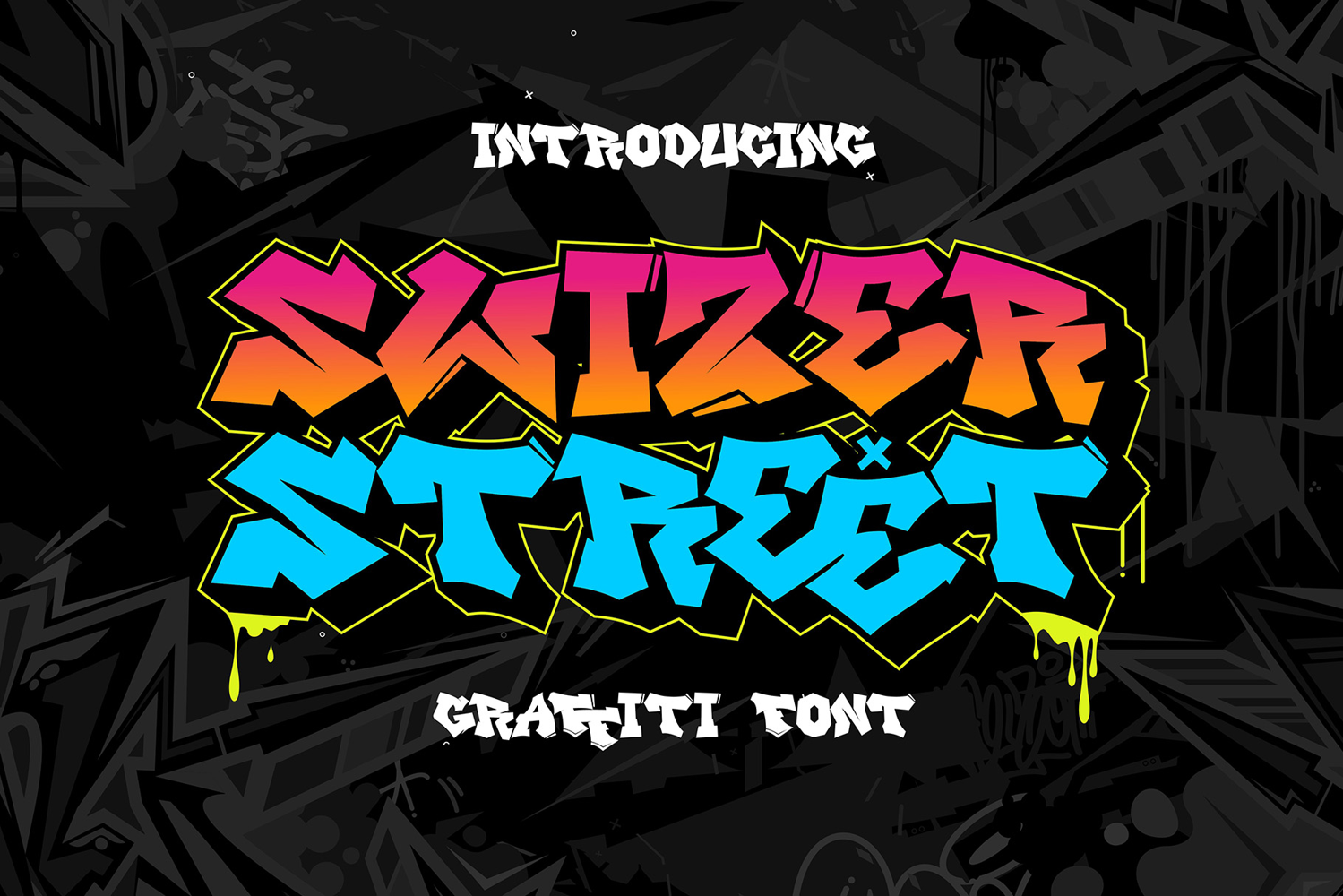
Introducing Swizer Street – the ultimate Urban Graffiti Font that brings the spirit of the streets to your designs. Perfectly capturing the raw energy and edgy vibe of urban art, Swizer Street is designed to make a bold and rebellious statement in any creative project.